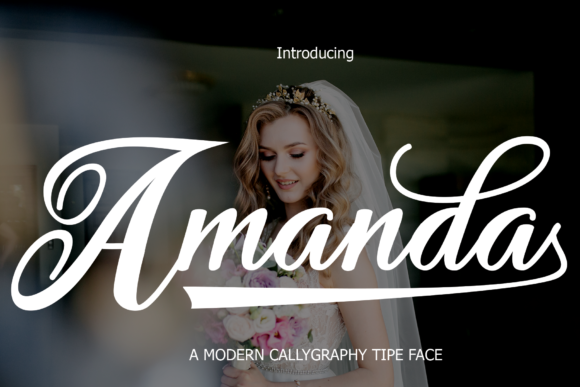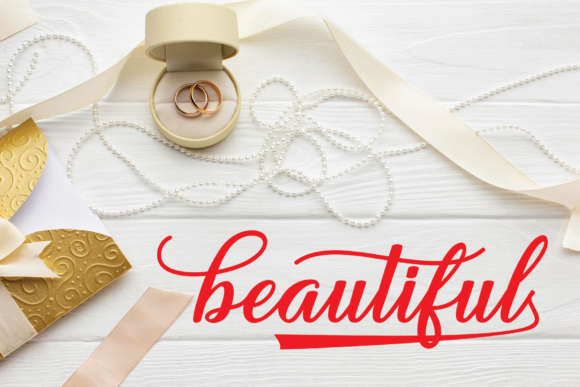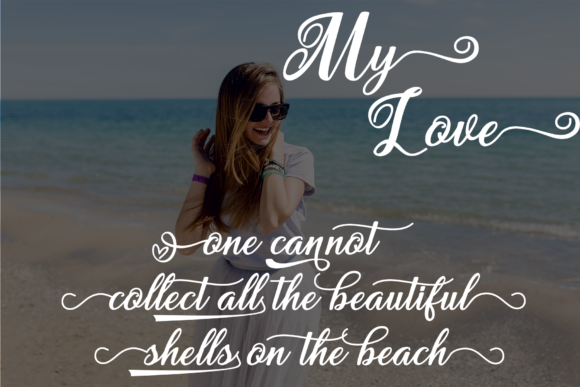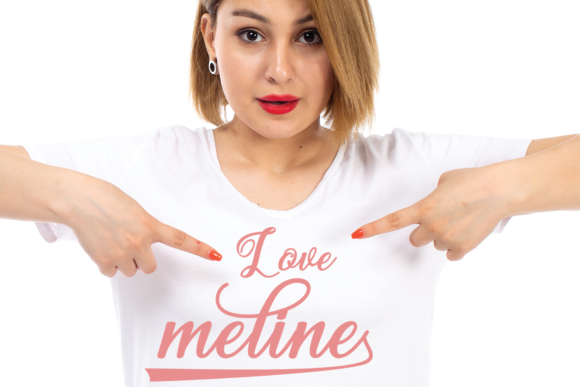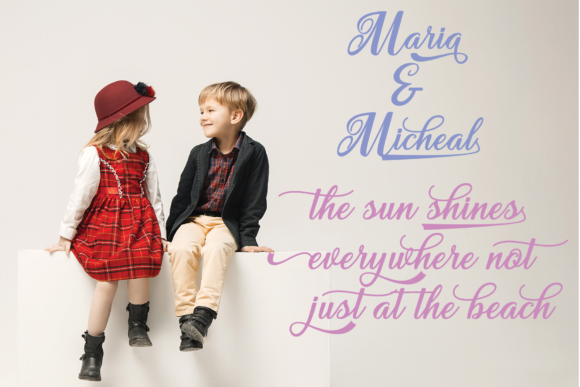
About Amanda Font
Amanda is a bold handwritten font, masterfully designed to become a true favorite. It maintains its classy calligraphic influences while feeling contemporary and fresh. Fall in love with it and bring your projects to the highest levels!